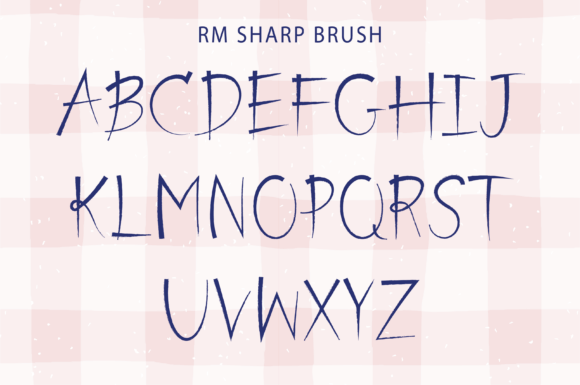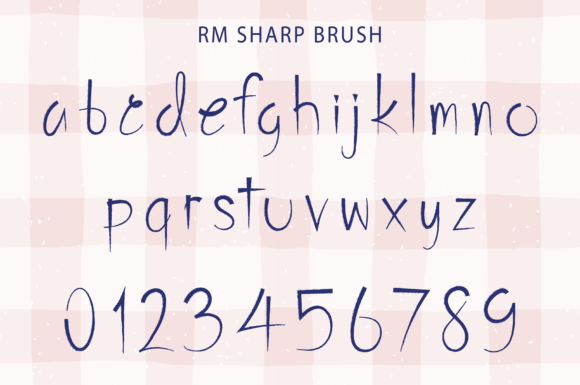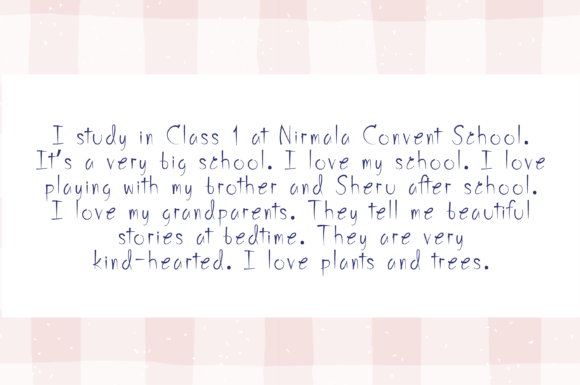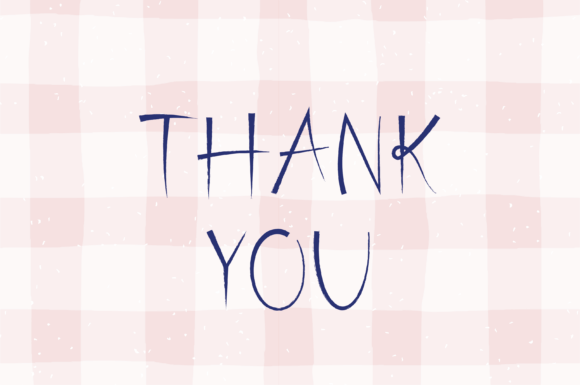
Sharp Brush Font – Free Download
Introduction to Sharp Brush Font
Introducing Sharp Brush, a font intricately crafted to mirror the nuances of hand-written text.
Designed to deliver authentic stroke effects, it authentically mimics your own handwriting, making it an ideal choice for teachers and note-making aficionados Extend its application beyond paper; itโs not just a font, itโs a creative tool that allows you to enhance everything from your favorite shirt to your daily coffee mug.
Key Features of Sharp Brush Font
Why Choose Sharp Brush Font?
Sharp Brush Font offers exceptional quality and versatility, making it a valuable addition to your design toolkit. Whether you’re creating for personal projects or commercial use, Sharp Brush Font delivers professional results.